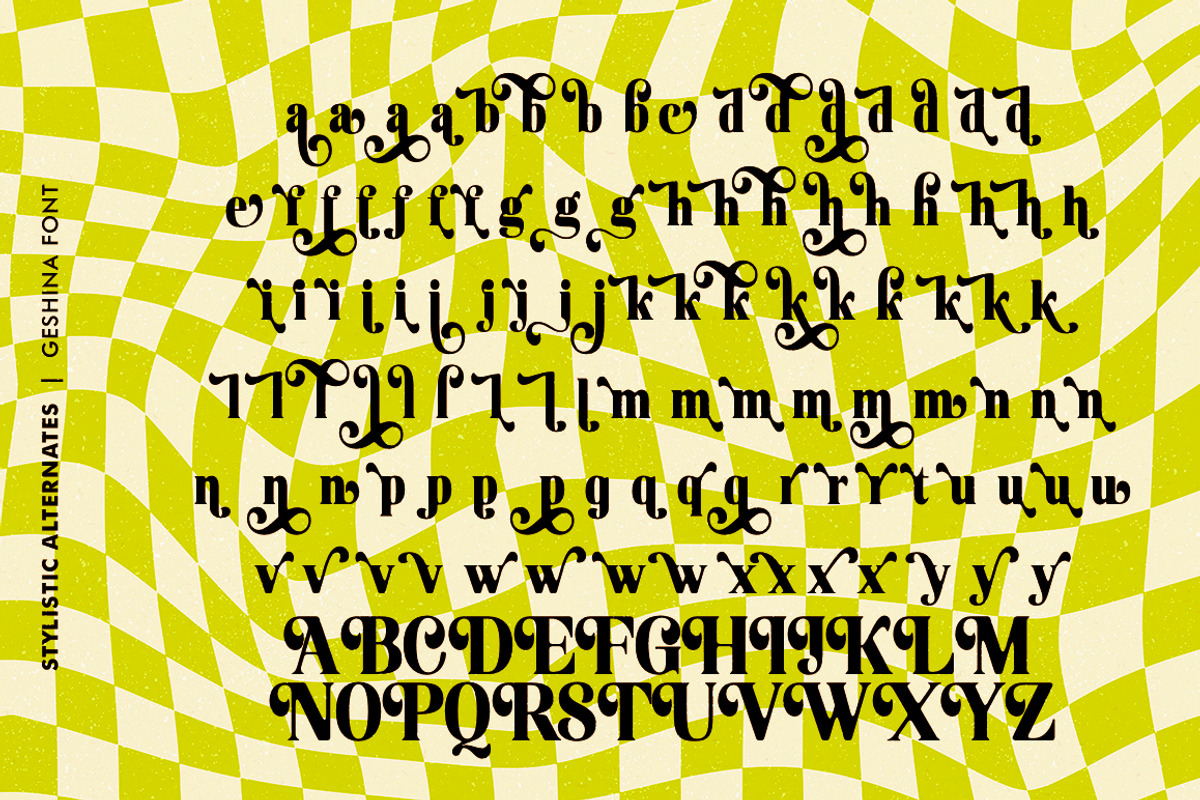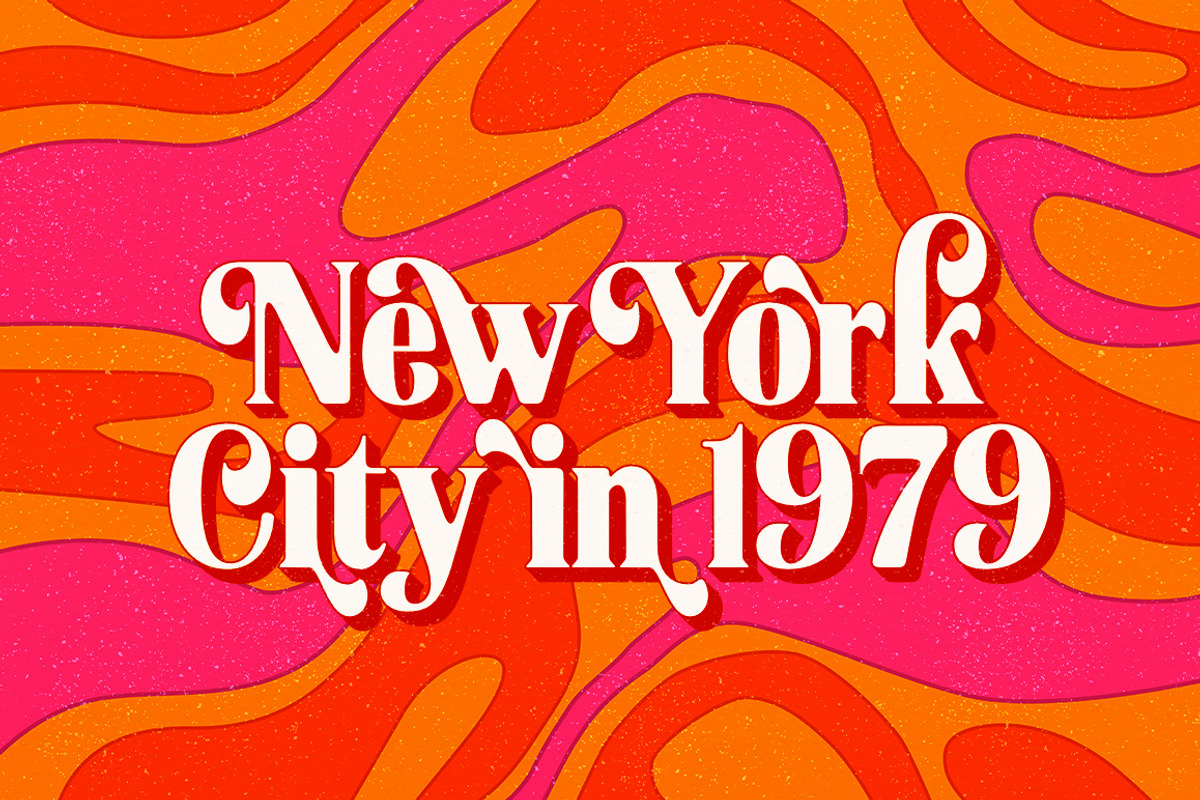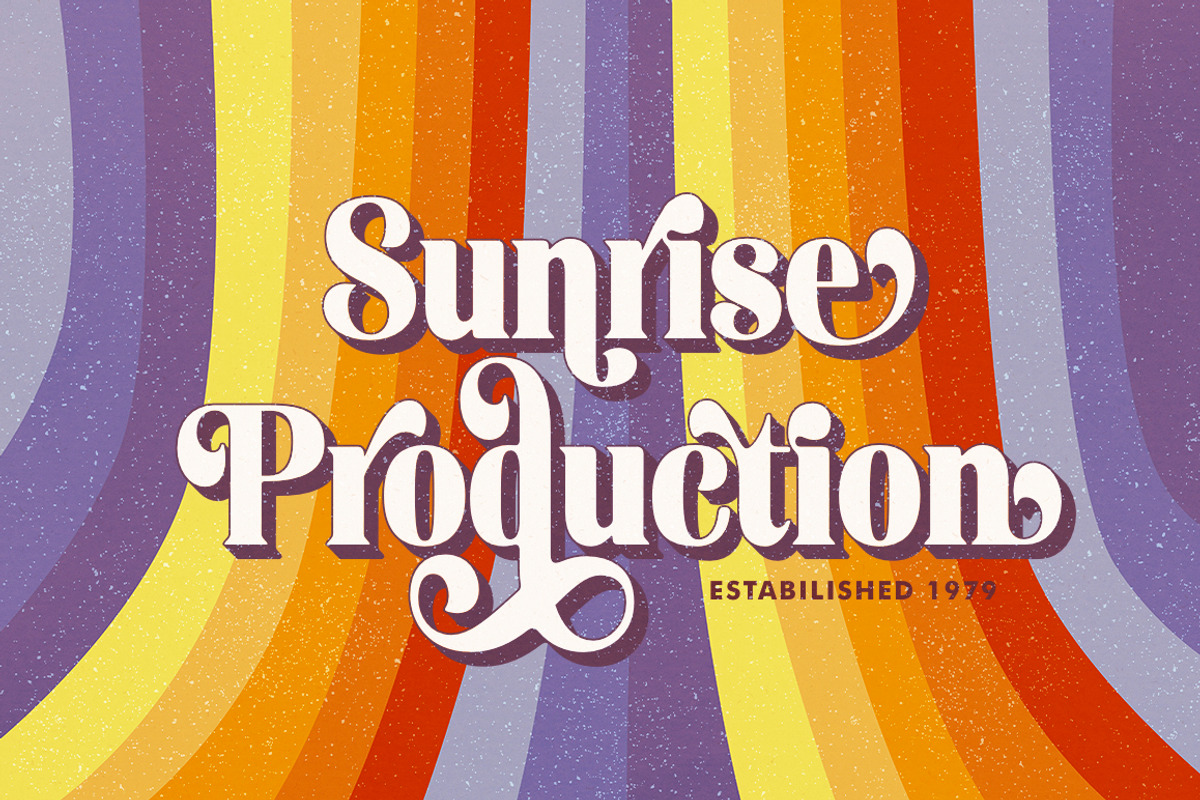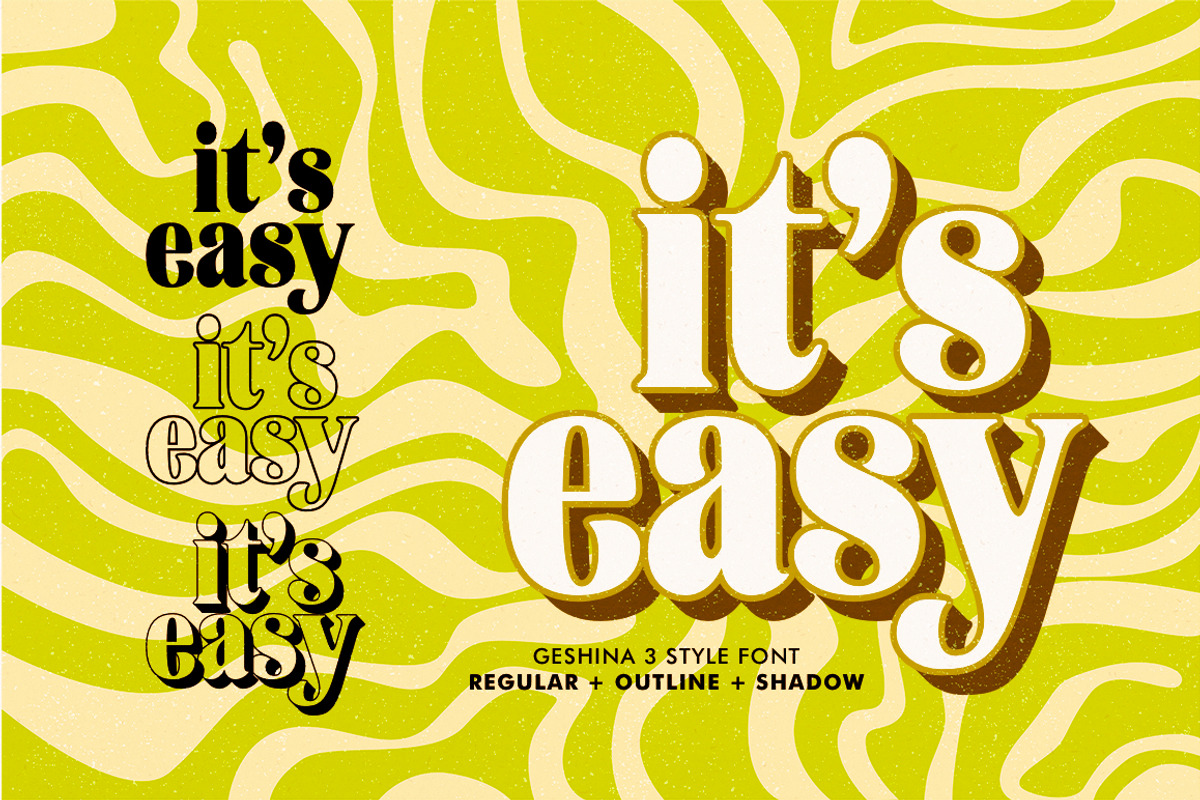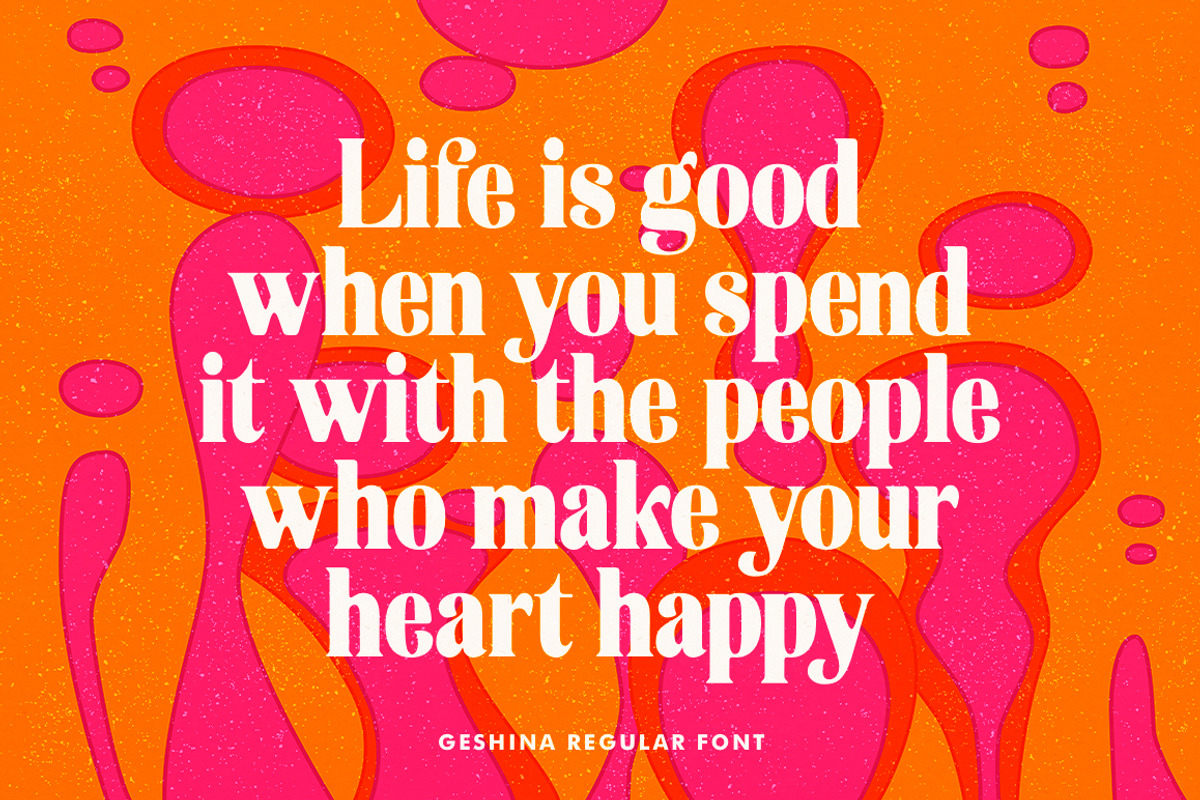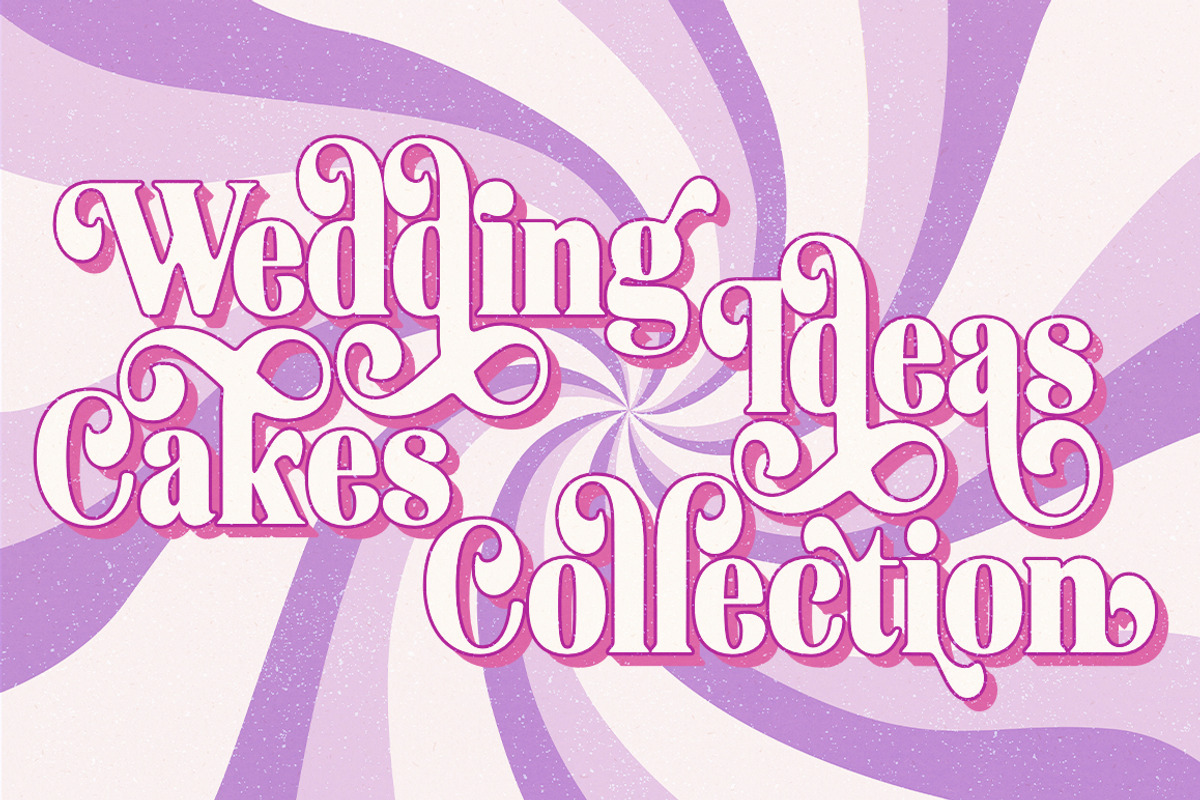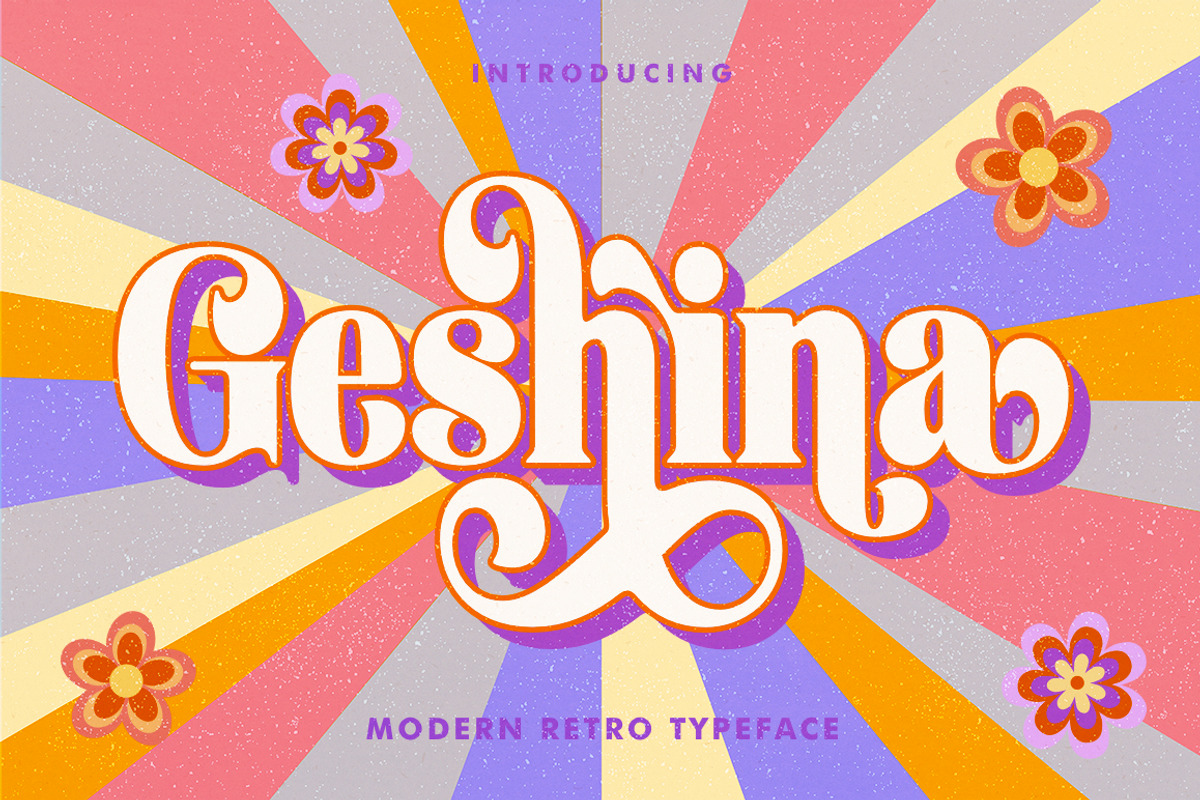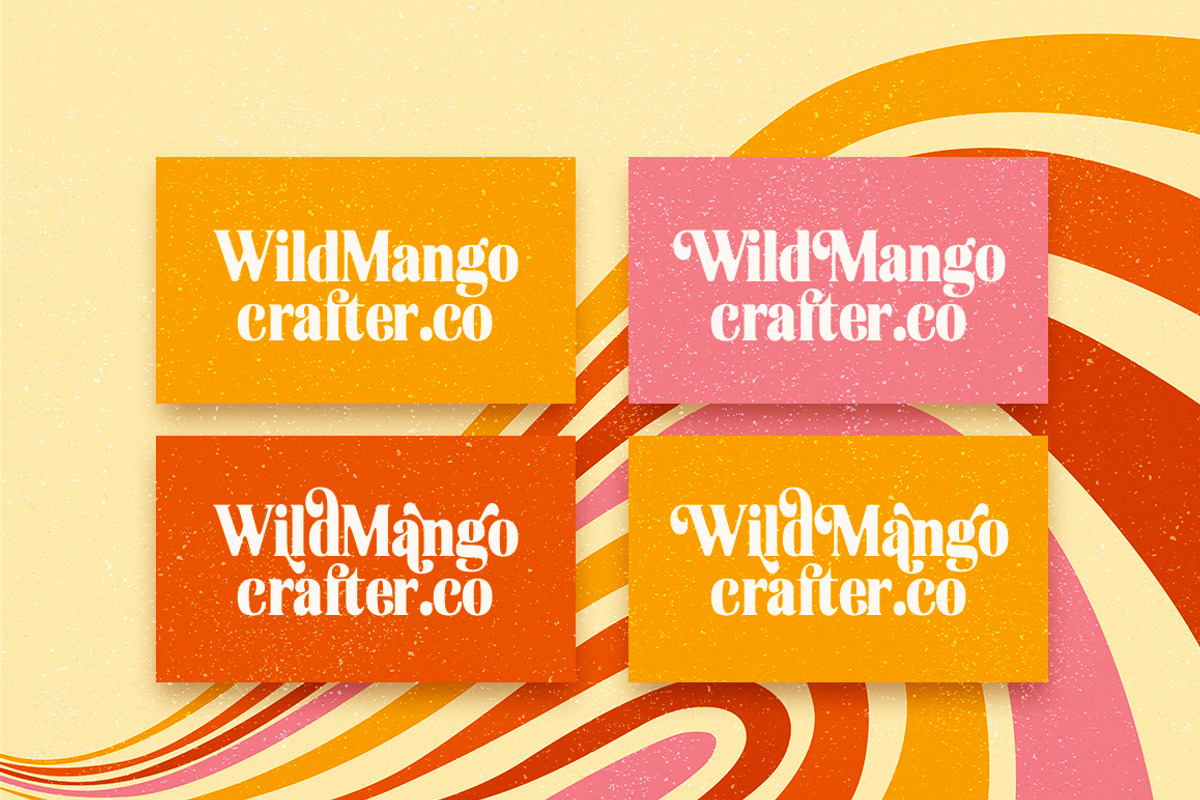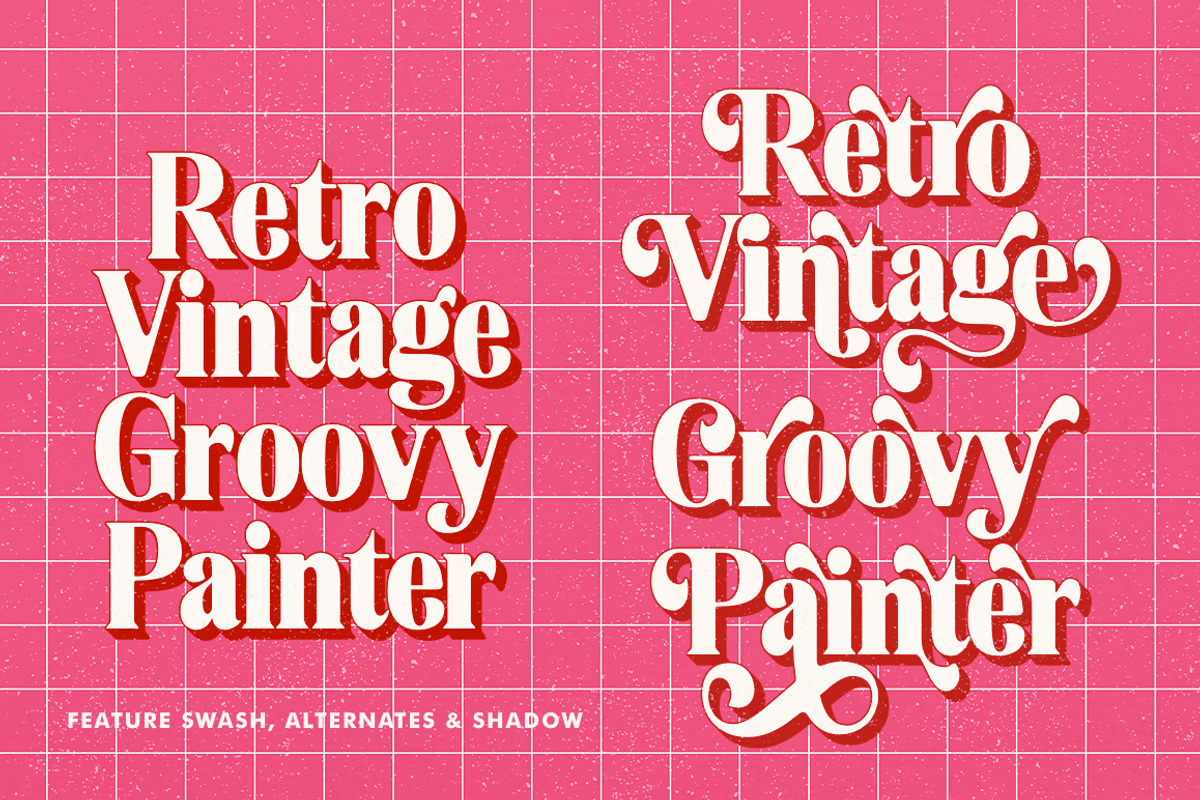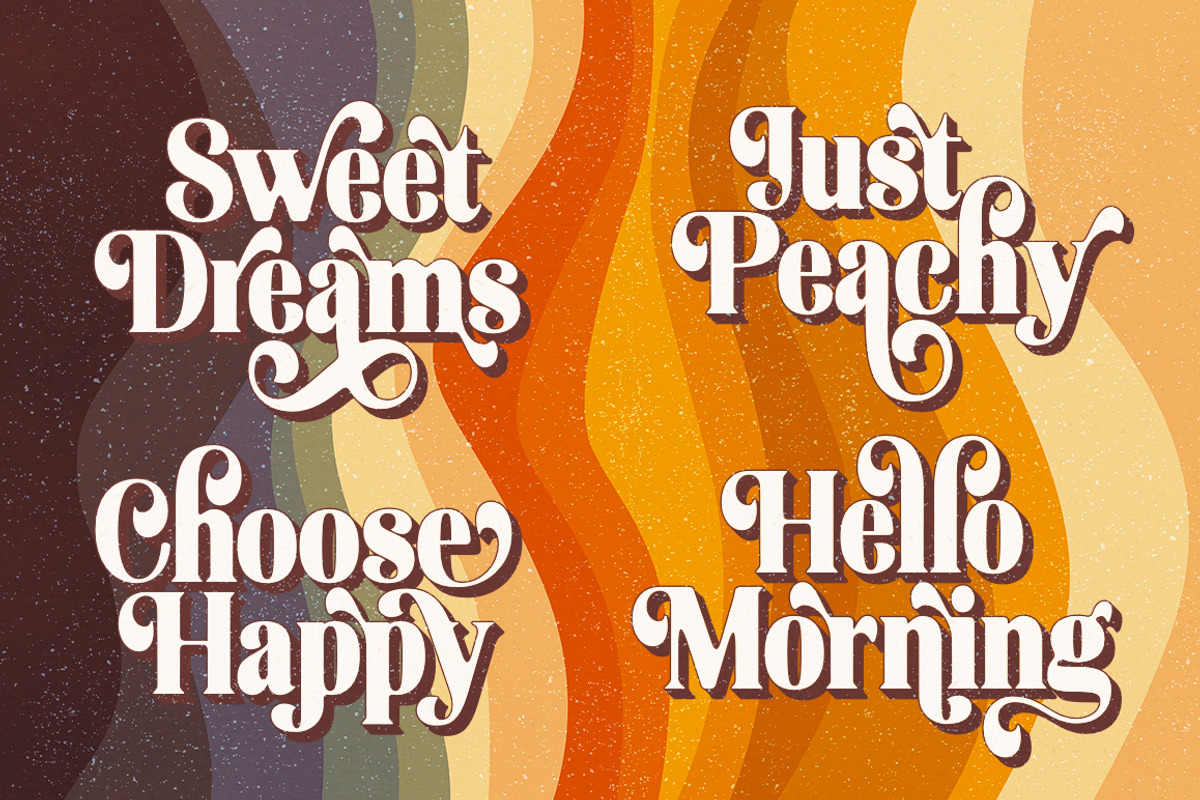
Geshina Typeface
This retro serif font features plenty of curvy letters that give it a refined and cheerful vibe. Tap into the 70s with the Geshina Font With Shadow. Perfect for lovers of all things retro, Geshina is available in three styles: regular, outline, and shadow. It includes upper and lowercase characters, numbers, punctuation, ligatures, alternates, swashes, and multilingual support.